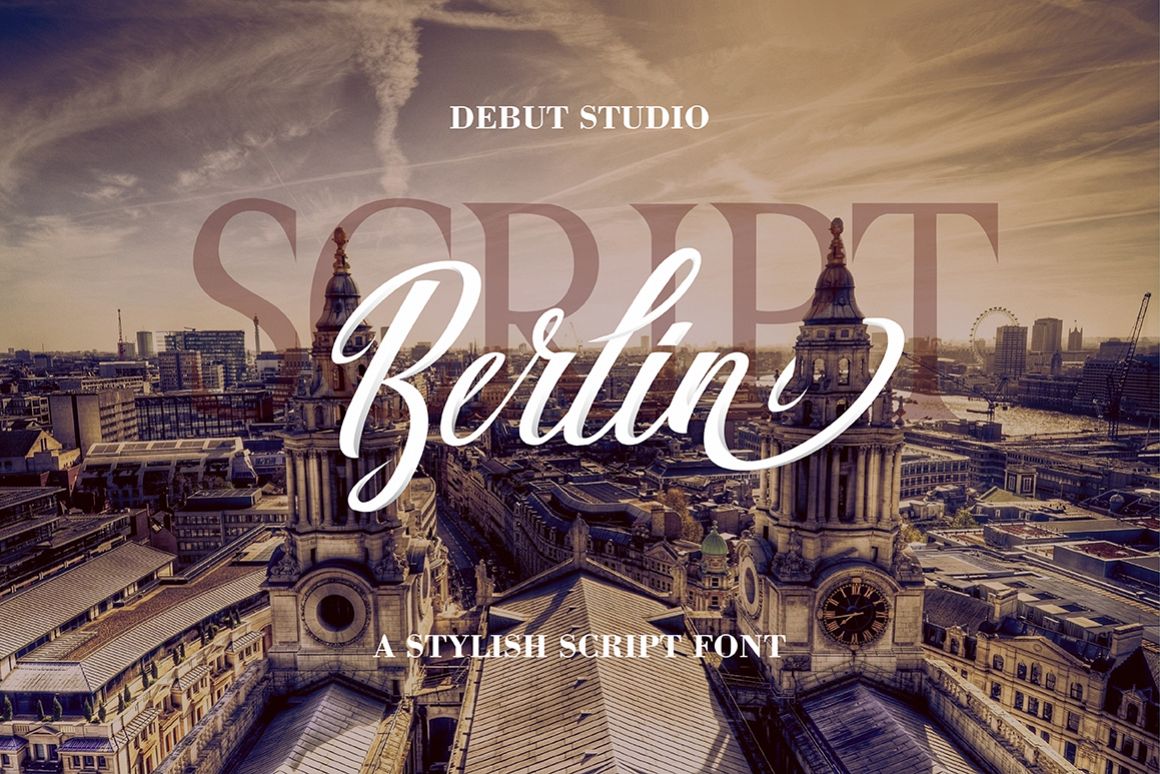
Berlin Script + Great Serif
Introducing Berlin Script + Great Serif. This font is suitable for watermarks, signatures, photography, logos, business cards, quotes, and various other design purposes. This font looks elegant, classy, readable, stylish, catchy and easy to use.